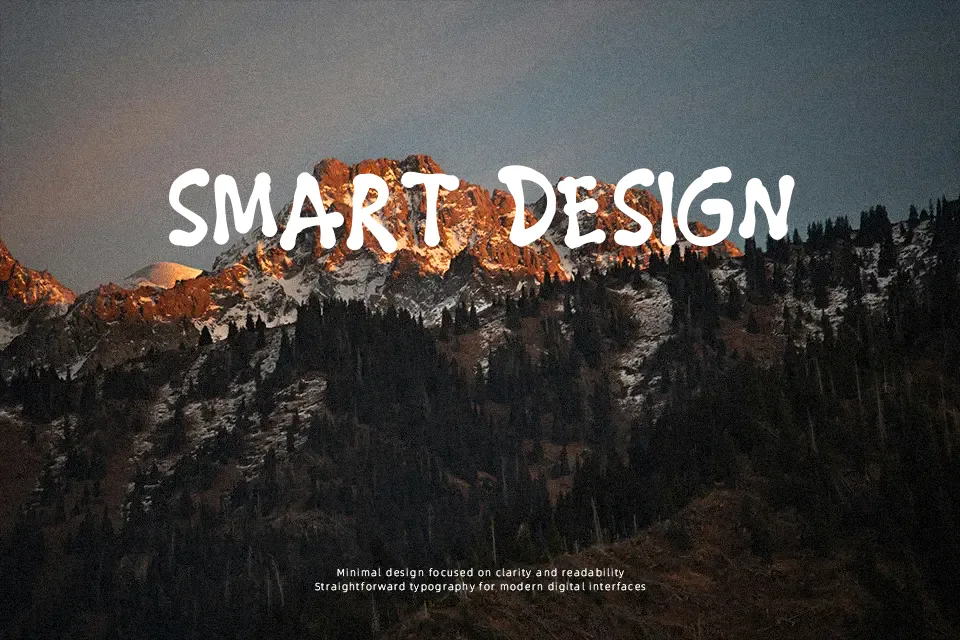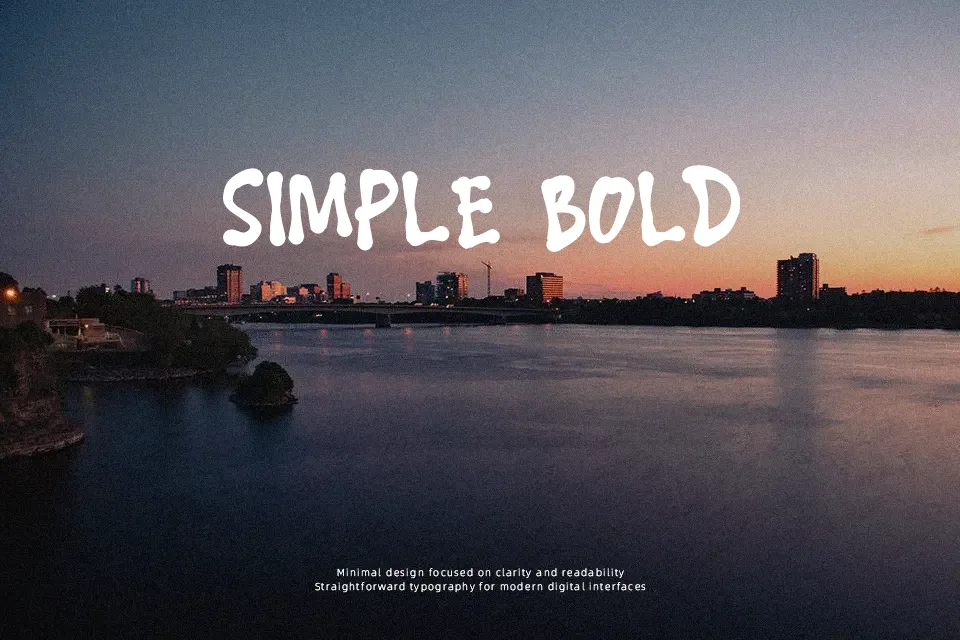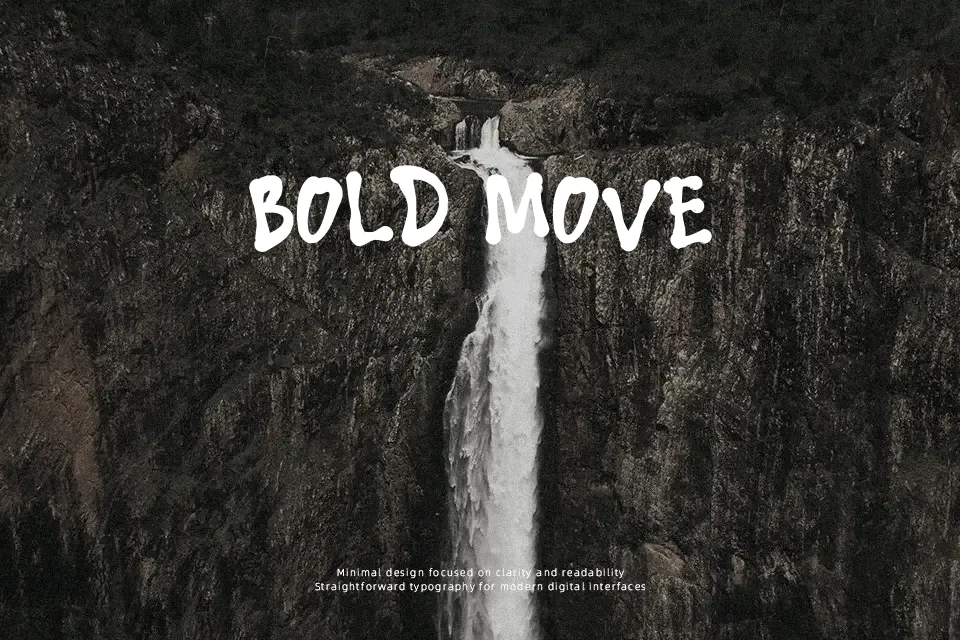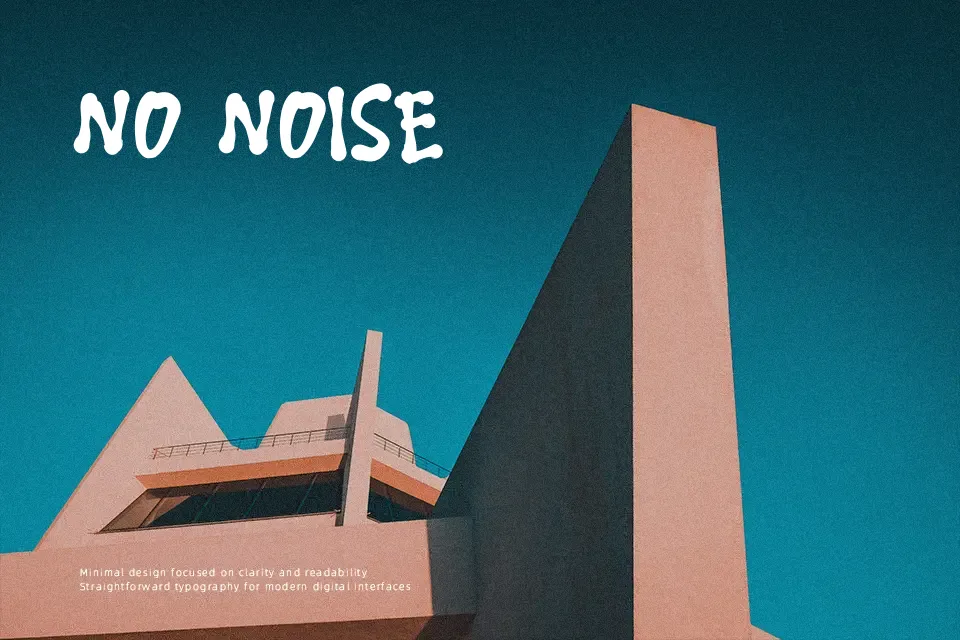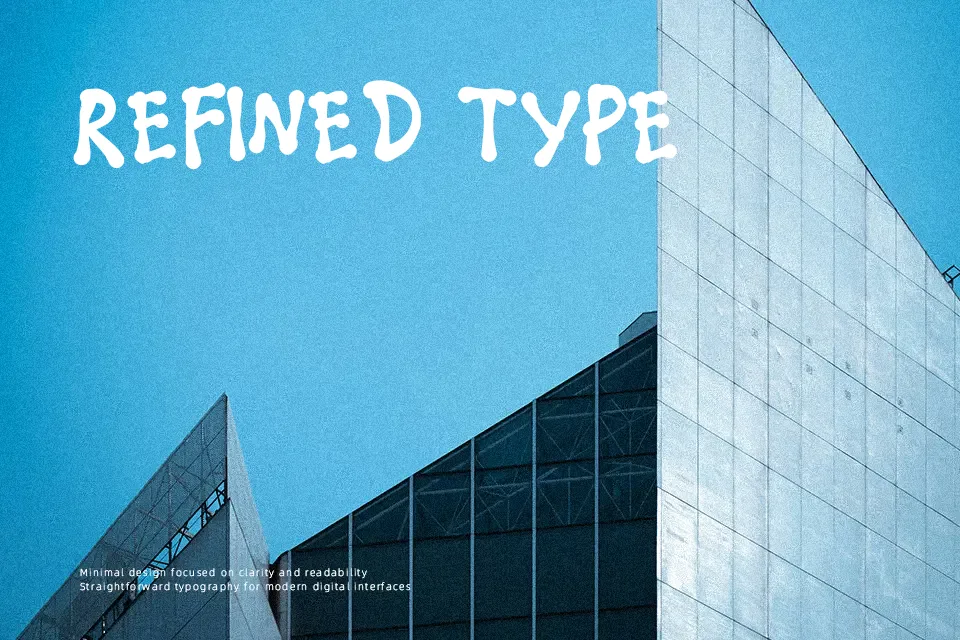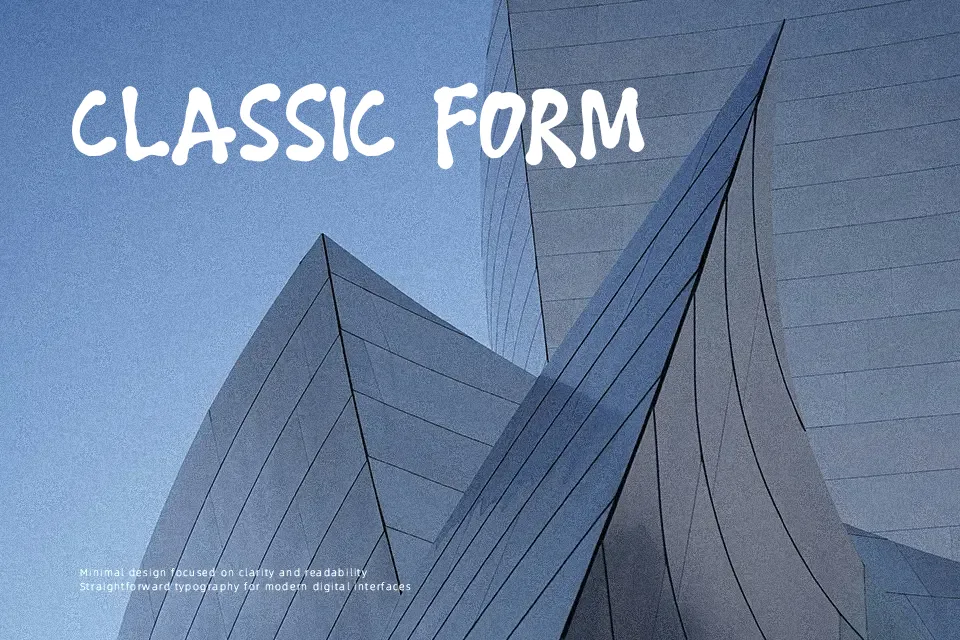
The Dark Ocean Font
The Dark Ocean Font opens with bold, spontaneous brush strokes that establish a dramatic display presence across every uppercase letterform. Moderate spacing and thick letter weights ensure immediate recognition in prominent headings, though the distressed contours naturally limit comfort in continuous body copy. Its energetic construction delivers punchy character to merchandise graphics and packaging layouts without sacrificing structural balance. Overall, the typeface provides dependable graphic punch whenever creative titles need an adventurous, handcrafted feel.
– adventure game titles
– streetwear apparel graphics
– event poster headlines
– continuous body text
– mobile interface labels
– formal legal documentation
Perfect for gaming, headline, and packaging, with a creative and brush style.